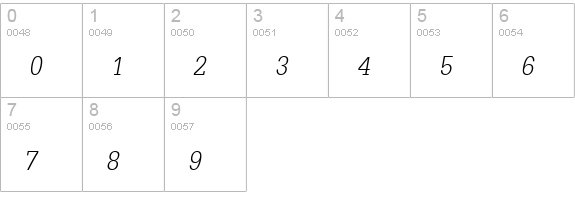
DilleniaUPC Italic Font Details
DilleniaUPC Italic is a distinctive, italic variant in the DilleniaUPC typeface family \xE2\x80\x94 well suited to design and typography projects.
DilleniaUPC Italic font is a stylish and elegant typeface that exudes sophistication and charm. Its slanted design adds a touch of flair to any project, making it perfect for creating eye-catching headings, quotes, and invitations. The flowing curves and delicate serifs of DilleniaUPC Italic give it a timeless appeal that is sure to make your text stand out. What's even better is that DilleniaUPC Italic font is available for free download at FontsMarket.com. This means you can easily access this beautiful font and use it in your designs without any cost. Whether you're a professional designer or a hobbyist looking to elevate your projects, DilleniaUPC Italic font is a great choice that won't break the bank. Download it today and add a touch of elegance to your creations!